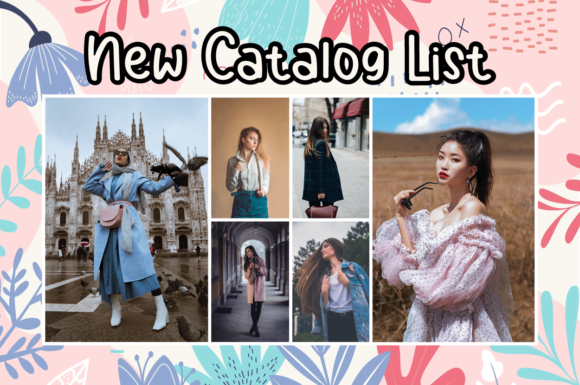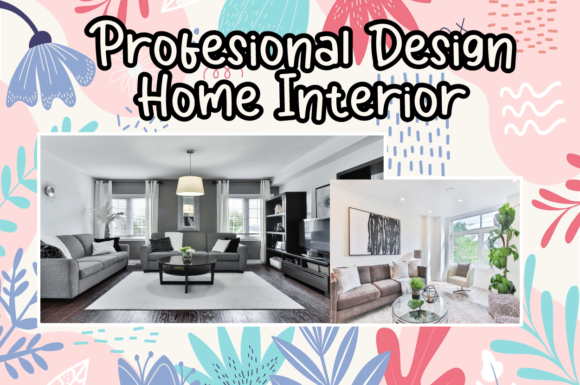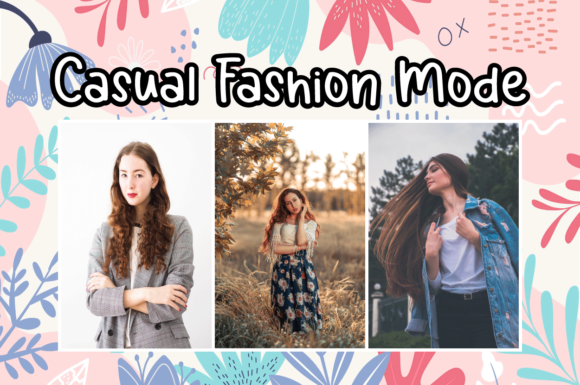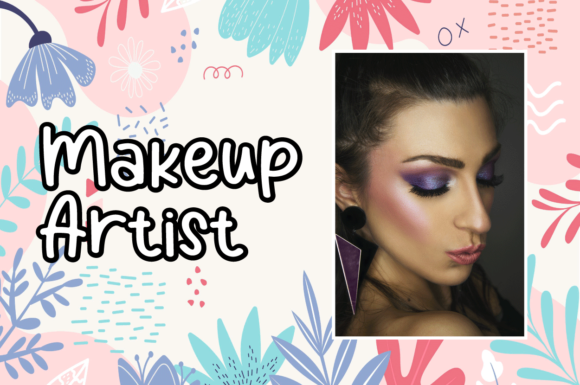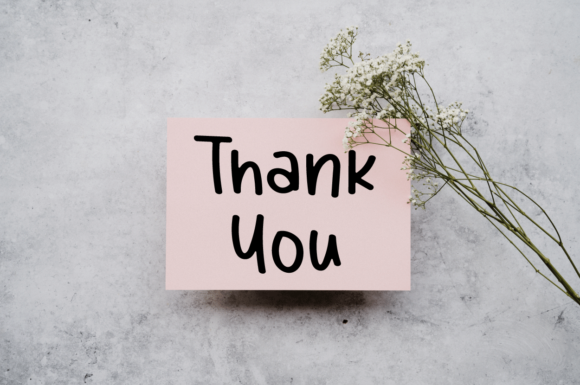
Semprul Font
About Semprul Font
Semprul is a simple and friendly handwritten font. No matter the topic, this font will be an incredible asset to your fonts’ library, as it has the potential to elevate any creation.